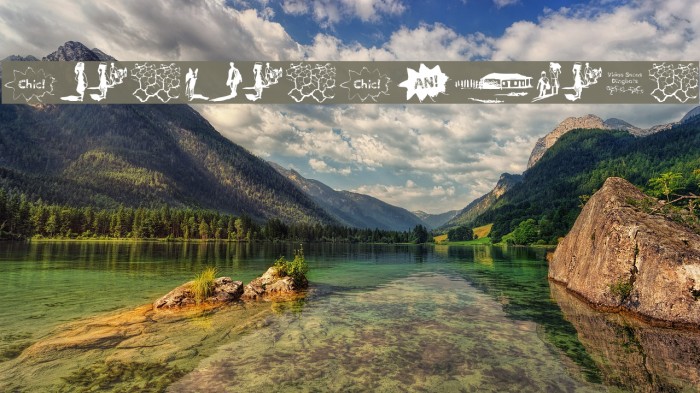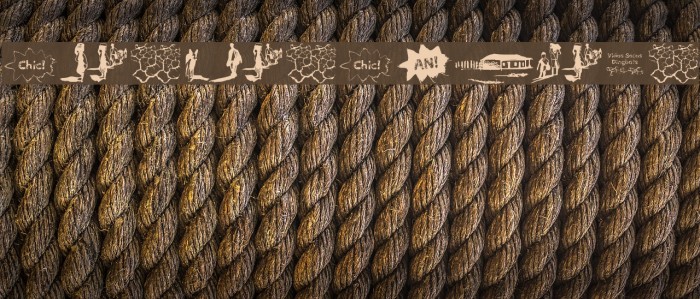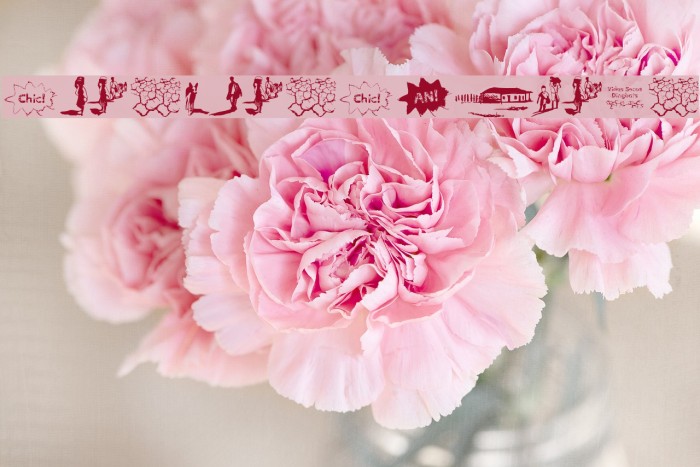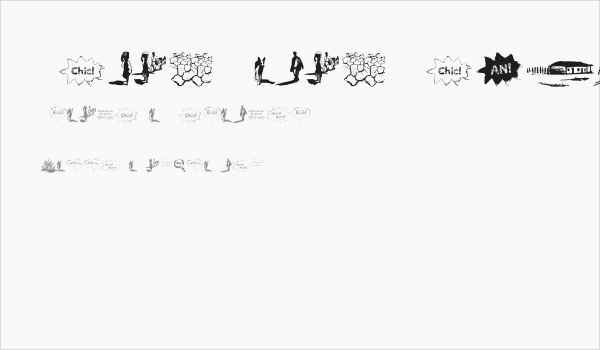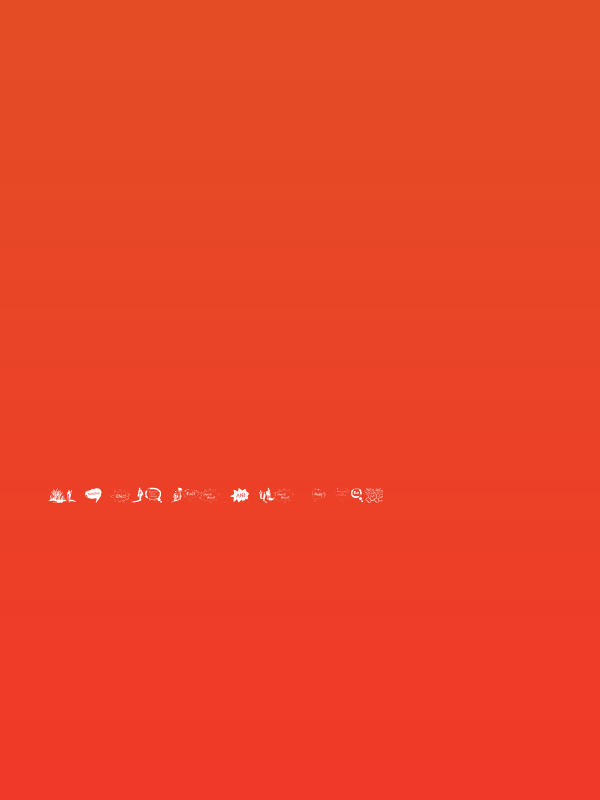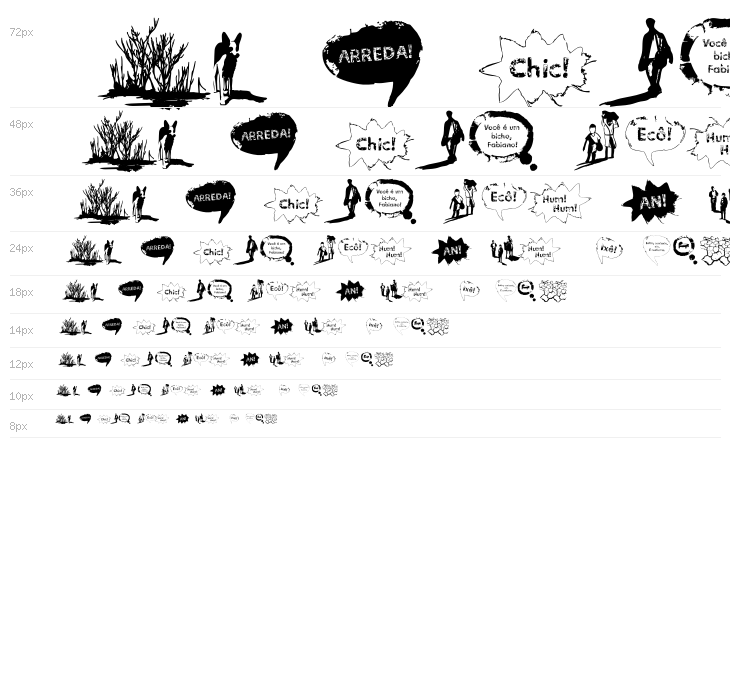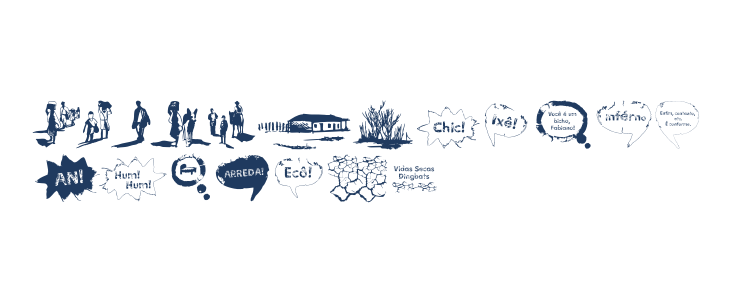
Vidas Secas Dingbats Font
Vidas Secas Dingbats Description
This collection features a series of illustrative dingbats inspired by the themes of the novel 'Vidas Secas'. The images include silhouettes of people, rural landscapes, and expressive speech bubbles with various phrases. Each element is intricately designed to convey a narrative or emotion, making it suitable for creative projects that require a storytelling aspect. The style is highly detailed and artistic, capturing the essence of the source material with a unique flair.
| Overall Style | Artistic |
| Use Case | Decorative elements, Illustrations |
| Proposed Projects | Ideal for book covers, artistic posters, educational materials, and creative storytelling projects. |